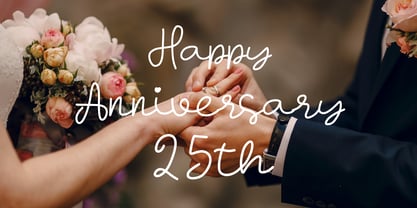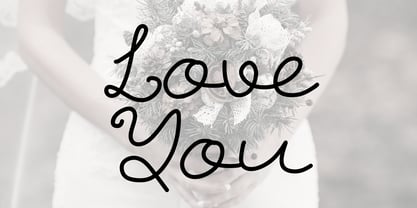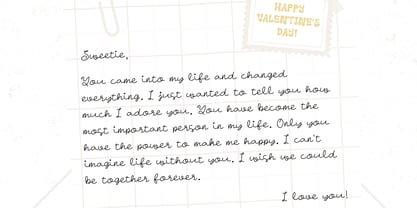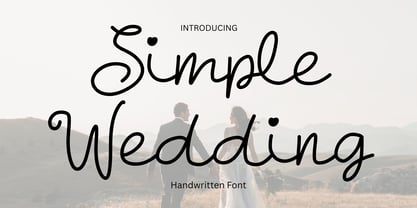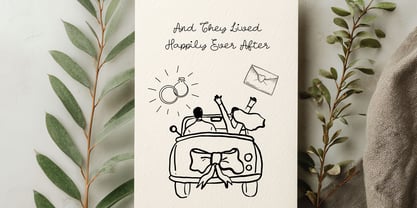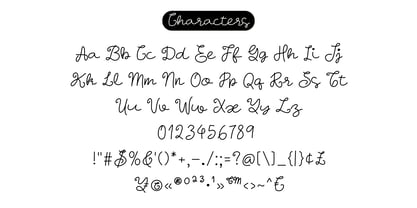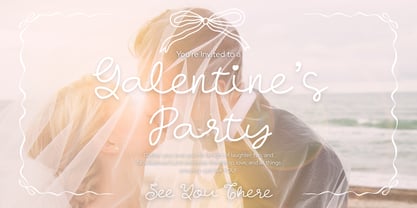
Simple Wedding
by Brown Cupple Typeface
The Simple Wedding Font Family was designed by Nattha​ Potchanad​ and published by Brown Cupple Typeface. Simple Wedding contains 1 styles. More about this family
Simple Wedding is a charming handwritten font designed to capture the warmth of love and the beauty of heartfelt moments. With its smooth strokes and natural flow, it brings a romantic yet playful feeling to any design. This font is perfect for wedding stationery, modern calligraphy projects, social media graphics, brand logos, packaging, invitations, greeting cards, planners, photo albums, and decorative layouts. Whether you’re creating something sweet, elegant, or fun, Simple Wedding adds a personal and authentic touch that makes every design feel special and memorable.
Designers: Nattha​ Potchanad​
Foundry: Brown Cupple Typeface